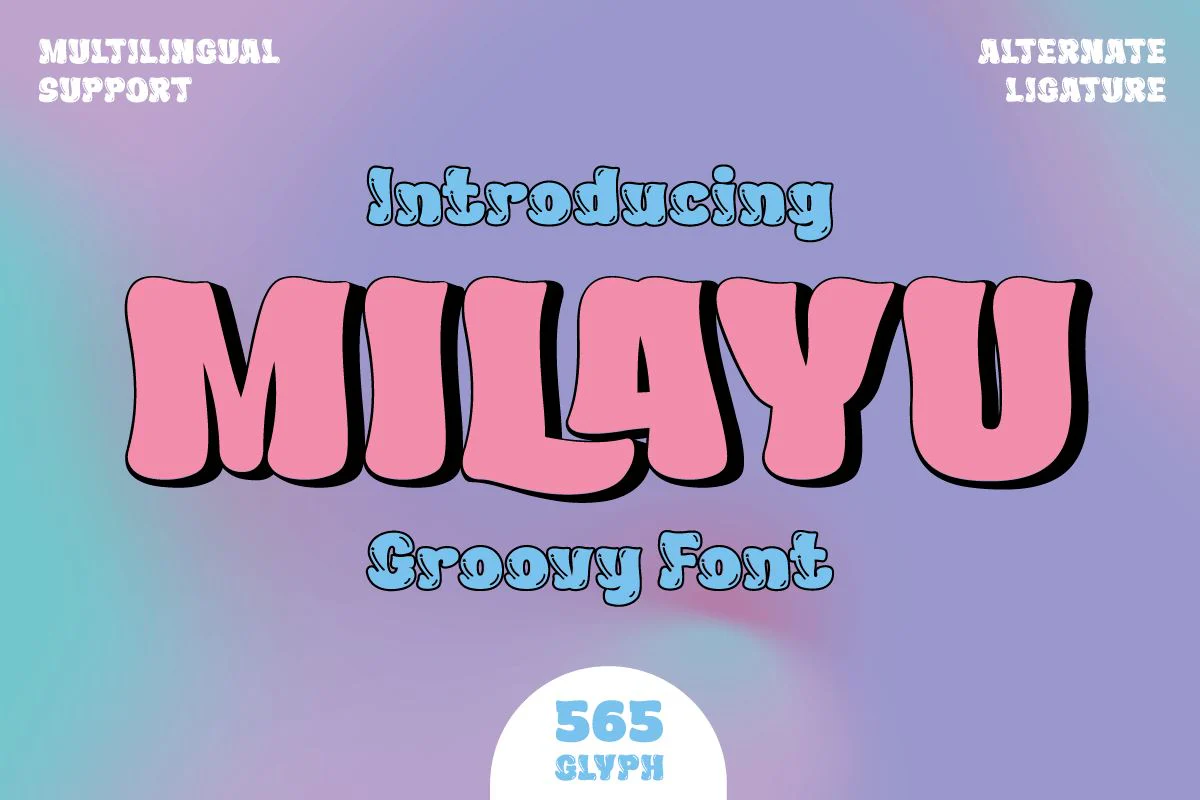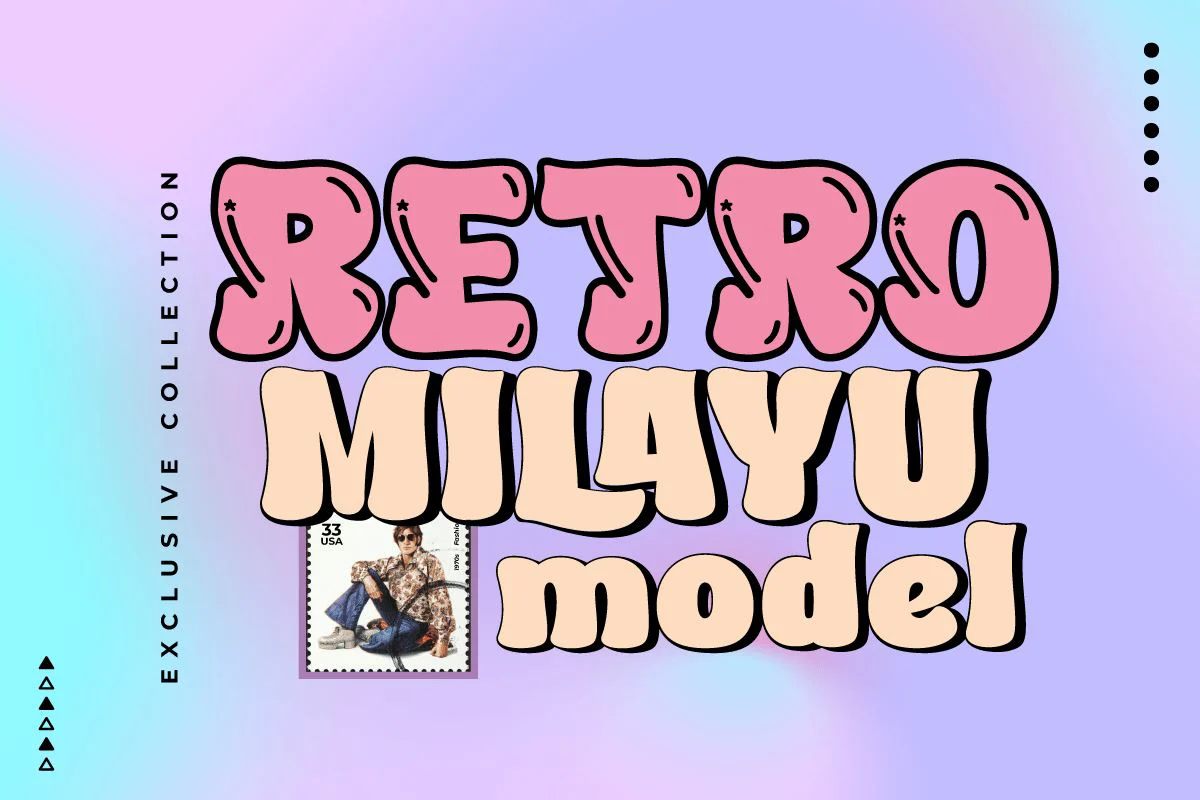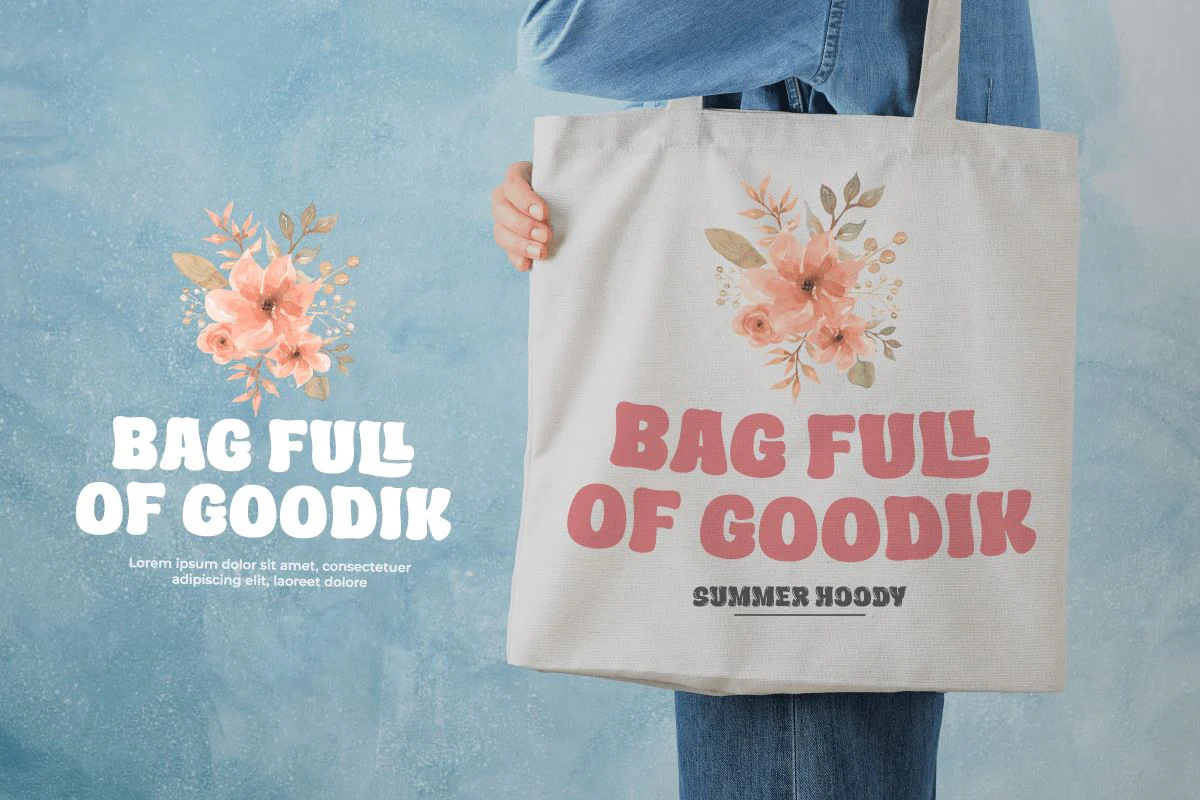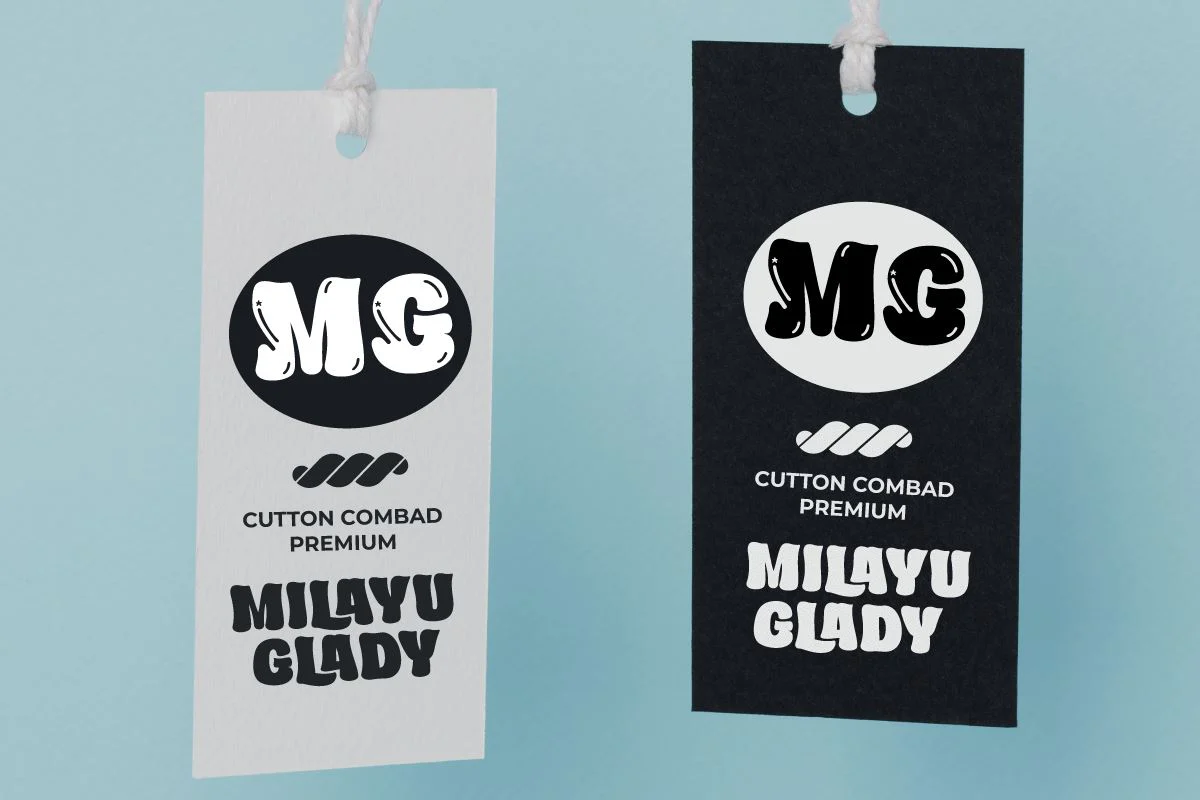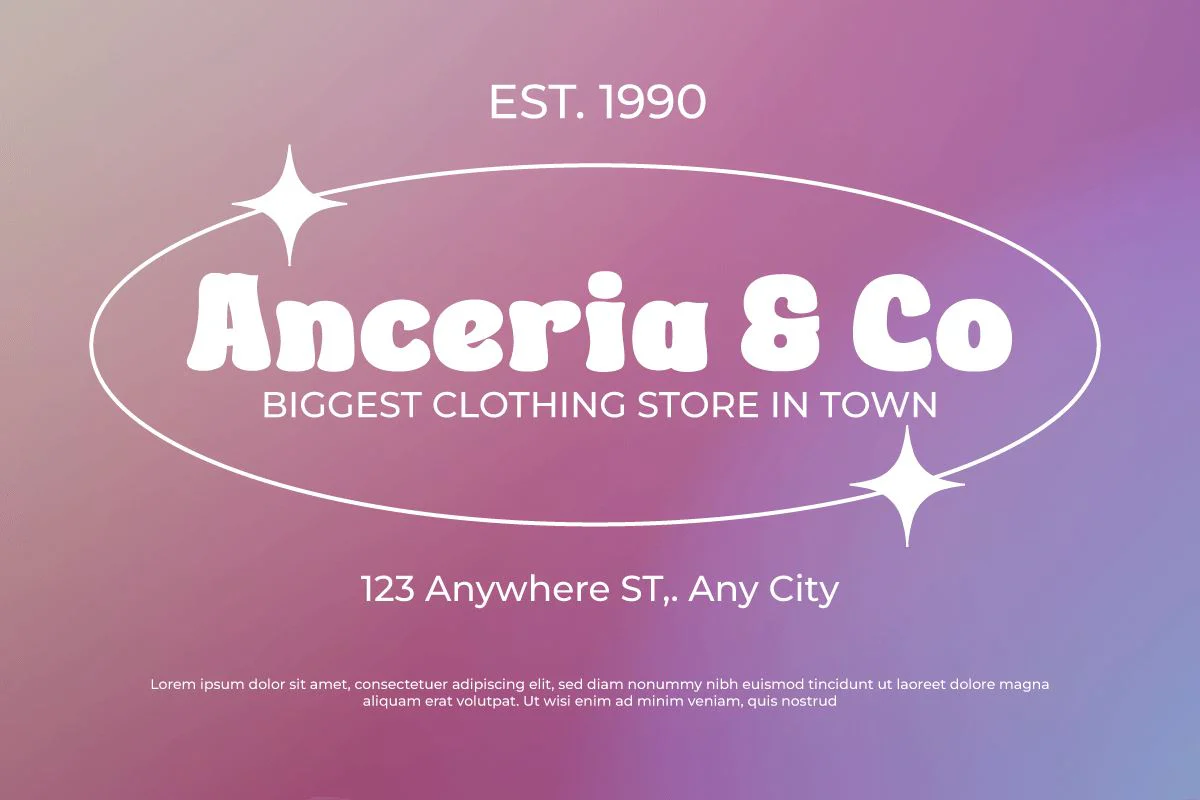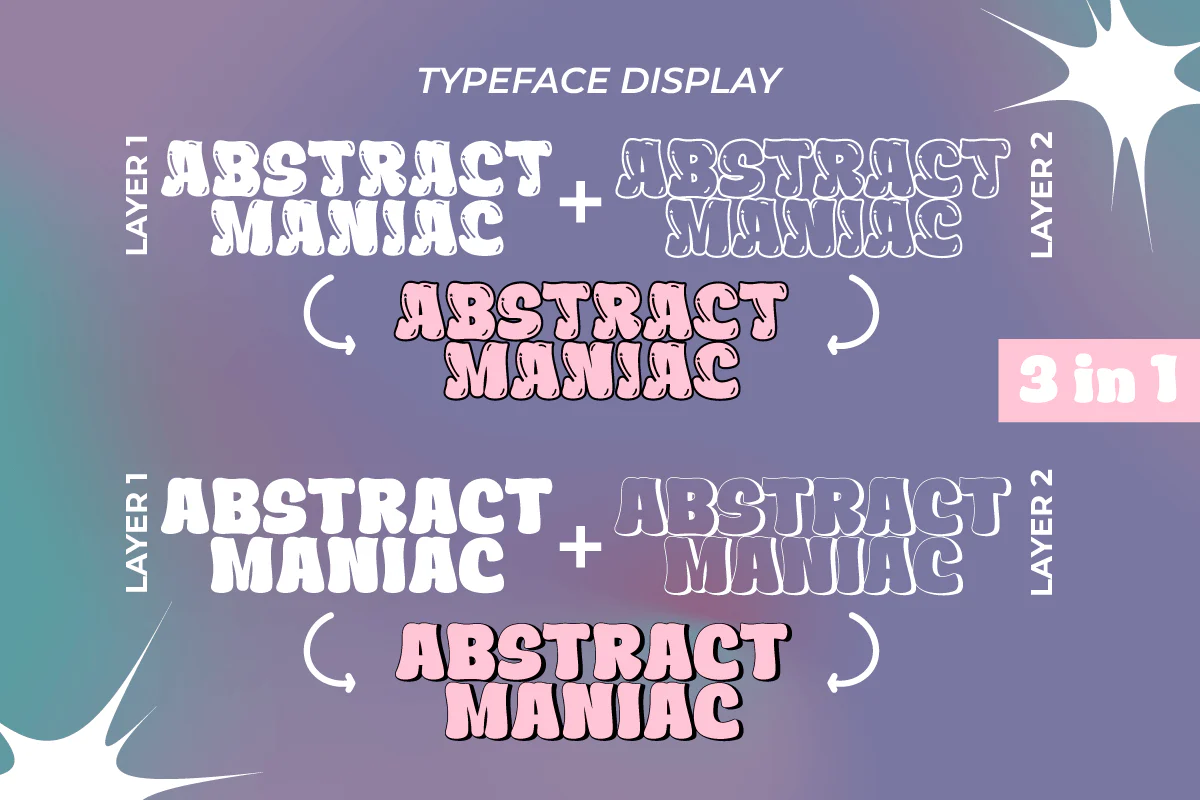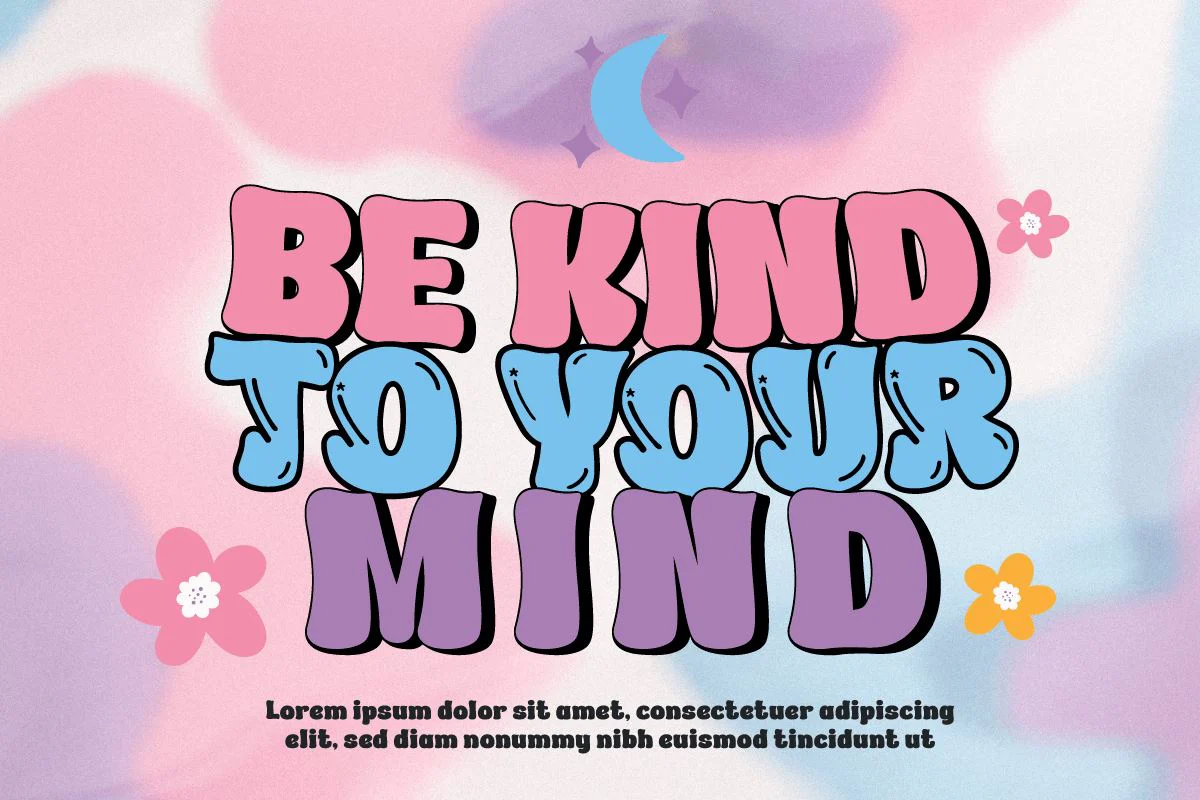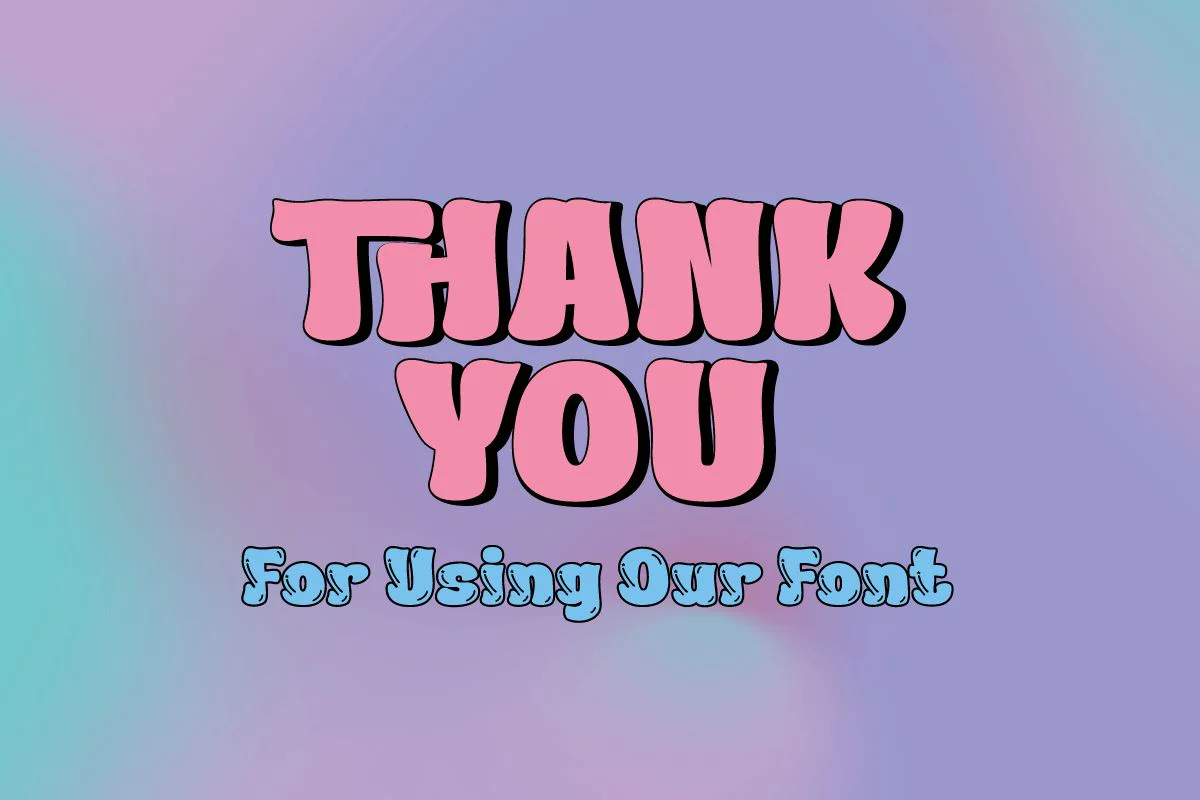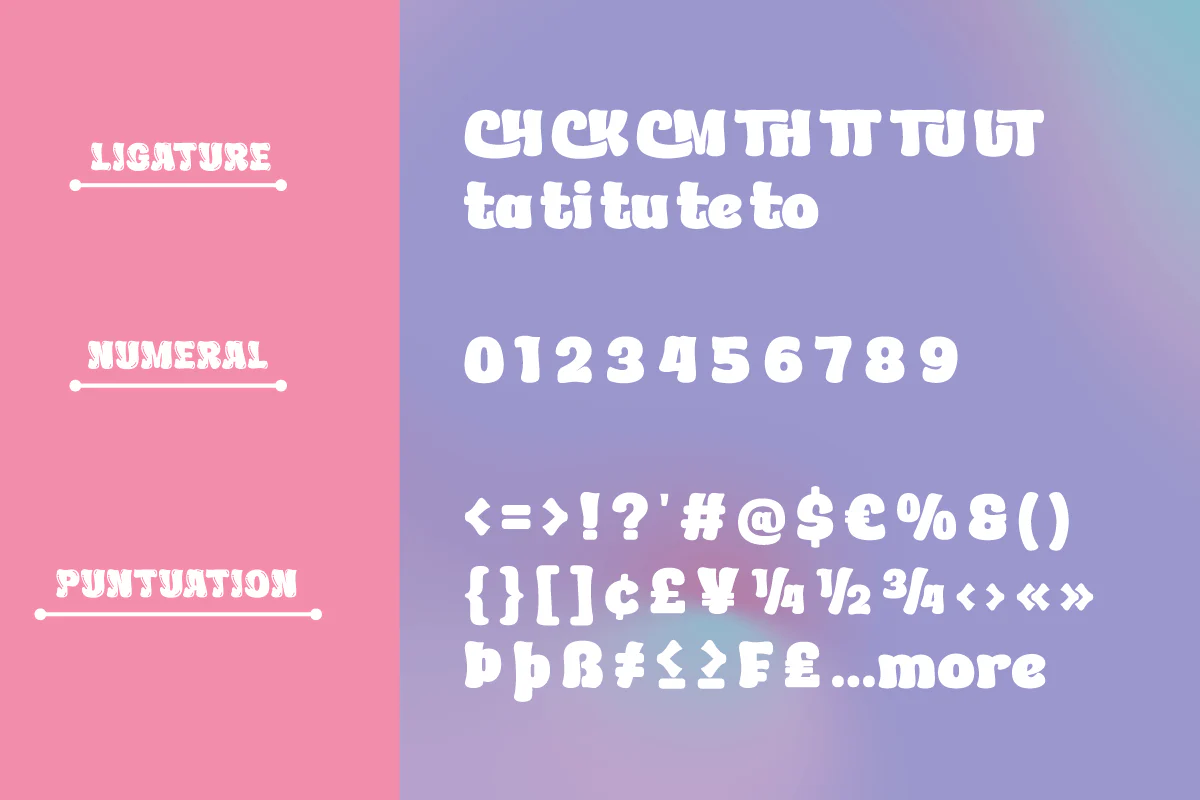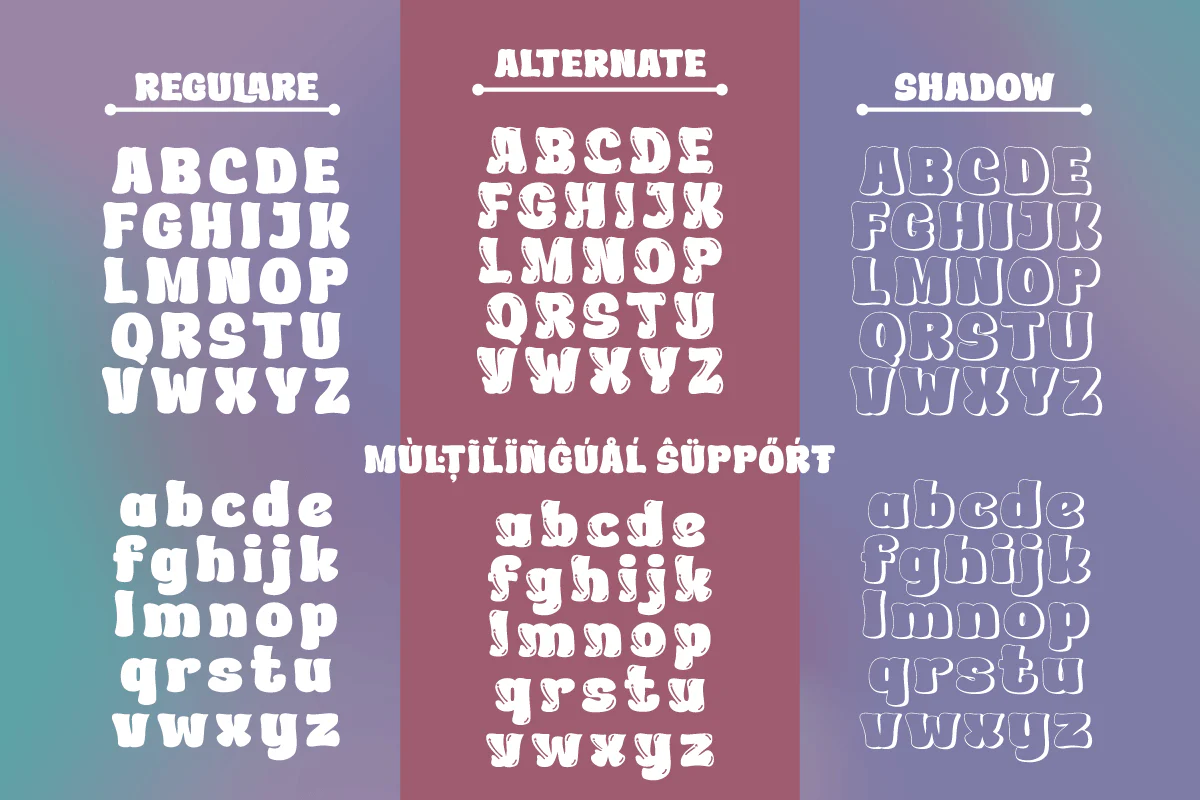
Milayu - Groovy Font
Introducing our newest font called Milayu, a Groovy Display font that will turn your every project into a bold and vibrant masterpiece. If you are looking for a way to give a strong, bold, and classic touch to your designs, Milayu is the perfect choice. Milayu comes in three different variants: Regular, Outline, and Shadow. This means you have the flexibility to bring different styles to each of your projects. Whether you want a strong, bold message, or a lighter look with an outline effect, Milayu has everything you need. What makes Milayu truly special are its abundant character ligatures and alternatives. This gives you the freedom to be creative and create unique and stylish designs. With multilingual support, Milayu is also ready to bring your message to the world. Milayu is the perfect choice for projects that require a bold, vibrant look. Let Milayu inspire your creativity and deliver your message in an unforgettable style.